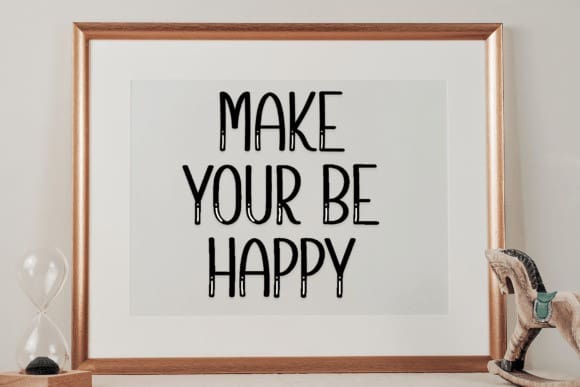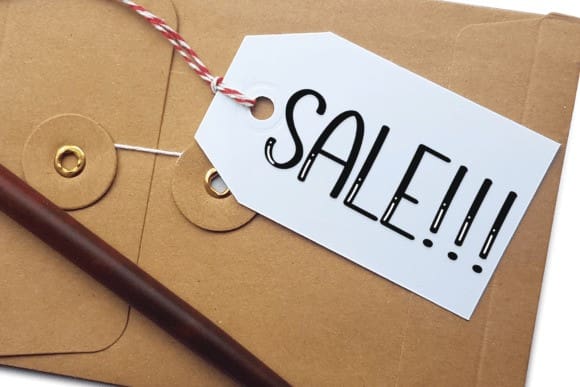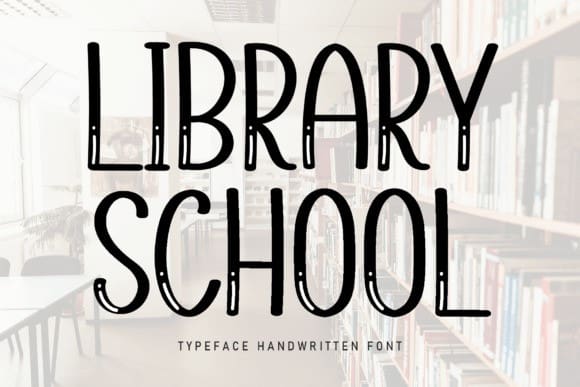
Library School Font
Library School Font is a sweet and friendly handwritten display font. Cute and fun, this font is ideal for writing wedding invitations, cards, or any other design that might need a fun touch!